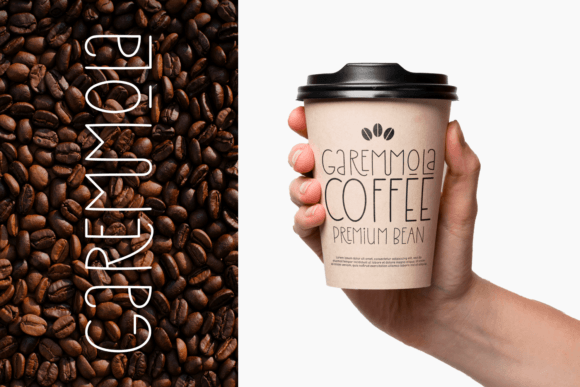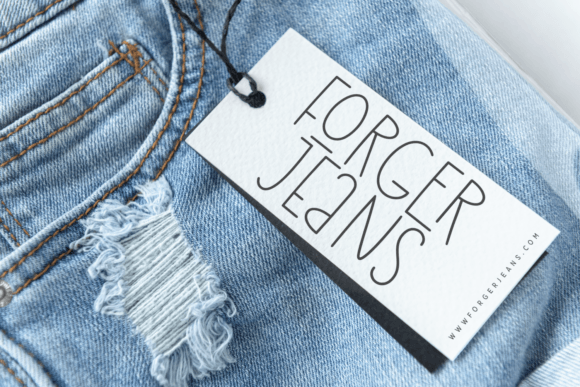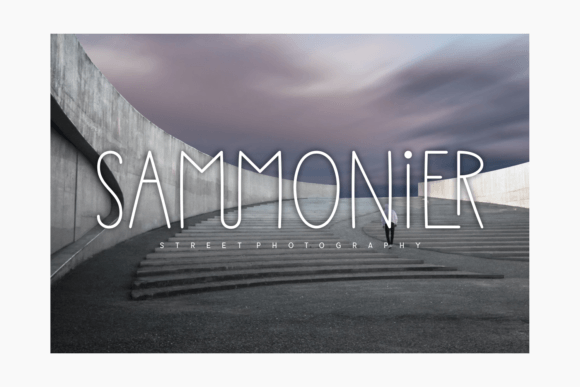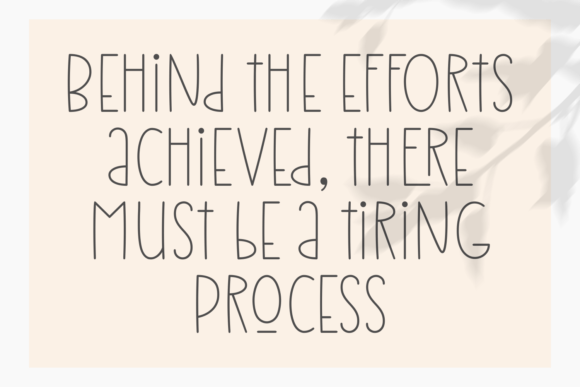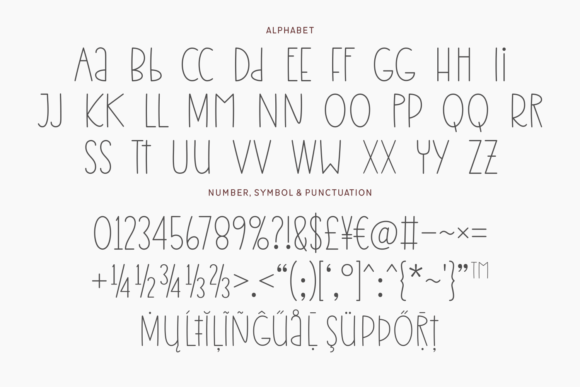
The Forever Slimmer Font: A Designer’s New Best Friend
I’ll never forget the time I was working on a branding project for a trendy new boutique, and I just couldn’t find the right font to capture their modern, sleek vibe. I scoured the internet, tried out dozens of fonts, but nothing seemed quite right. That was until I stumbled upon the Forever Slimmer font. It’s a thin and modern sans serif font that has become a staple in my design toolkit, and I’m excited to share it with you!
An Honest Review: What I Love and What I Don’t
- ✨ **Modern and sleek design**: Forever Slimmer has a fresh, contemporary feel that’s perfect for modern brands and designs.
- ✅ **Highly versatile**: This font looks amazing on cards, labels, logos, fabric prints, websites, and so much more.
- 💡 **PUA encoded**: With PUA encoding, you can easily access all the glyphs and ligatures, making it a breeze to create unique and stylish typography designs.
The Not-So-Good Stuff
- 🤔 **Limited contrast**: As a thin font, Forever Slimmer may not be the best choice for designs that require a lot of contrast, such as body text or long paragraphs.
- ⚠️ **May not be suitable for small sizes**: Due to its delicate design, Forever Slimmer may not be legible at very small font sizes.
The Story Behind Forever Slimmer
Forever Slimmer was designed by a team of typographers who wanted to create a modern and sleek sans serif font that would be perfect for branding and advertising. The font was inspired by the latest design trends and is characterized by its clean lines, elegant curves, and highly legible design.
Q: What is the Forever Slimmer font?
A: Forever Slimmer is a thin and modern sans serif font that’s perfect for creating stylish typography designs.
Q: Is Forever Slimmer PUA encoded?
A: Yes, Forever Slimmer is PUA encoded, making it easy to access all the glyphs and ligatures.
Q: Is Forever Slimmer suitable for body text?
A: While Forever Slimmer is a beautiful font, it may not be the best choice for body text due to its thin design and limited contrast.